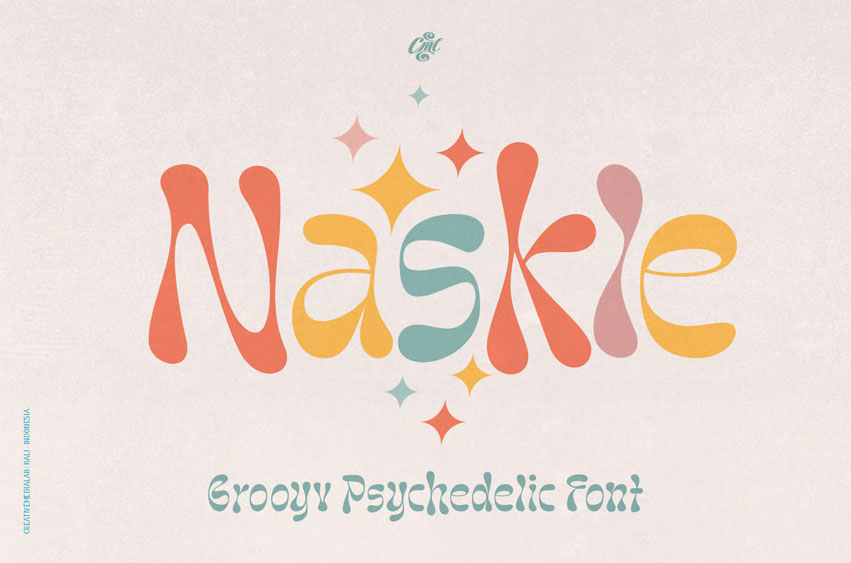
Naskle Font is a fun, funky, and versatile font family. You can use it for summer theme projects, posters, logos, retro or vintage themes, DIY projects, baby, 70s, 80s style, and much more.